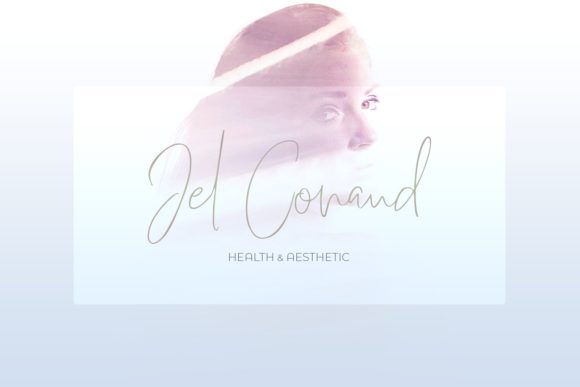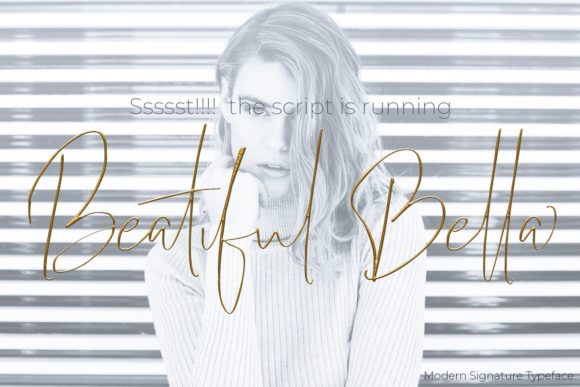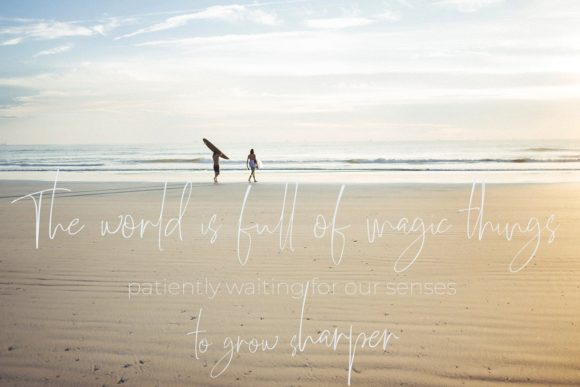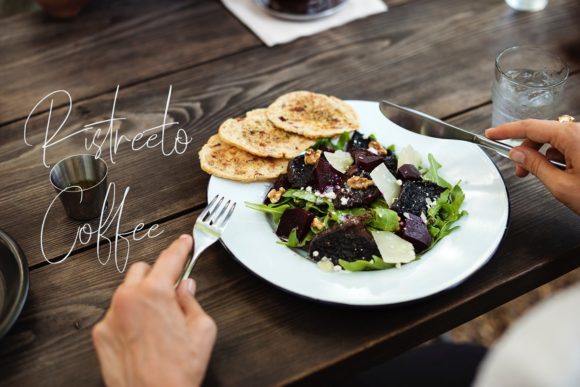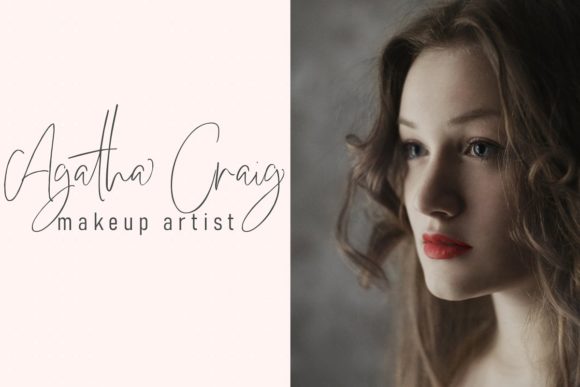
Officielle Script Font
About Officielle Script Font
Officielle is a stunning handwritten font with a stunning feel. Use it to add a light and contemporary feel to any design project!